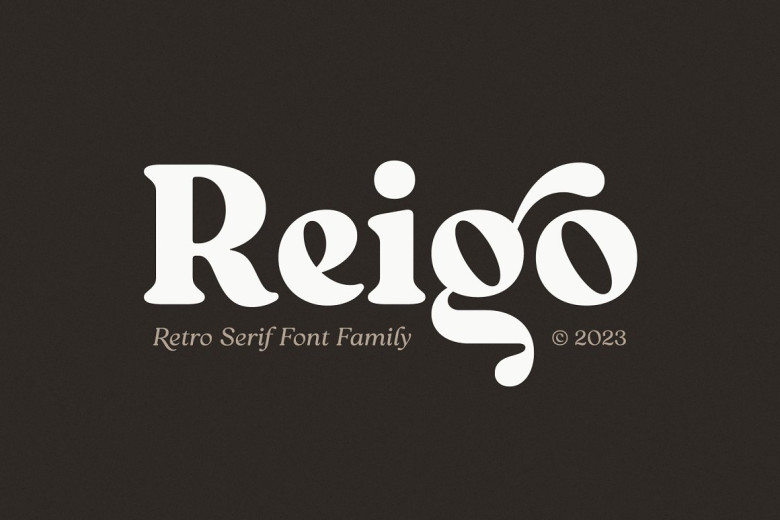
Reigo Font
Reigo is a retro serif typeface with gentle curves that create a warm, classy and organic aesthetic. Reigo features 7 uprights and matching italics; additionally it includes OpenType features like Ligatures and Discretionary Ligatures for an optimal writing experience.
Reigo Serif Font